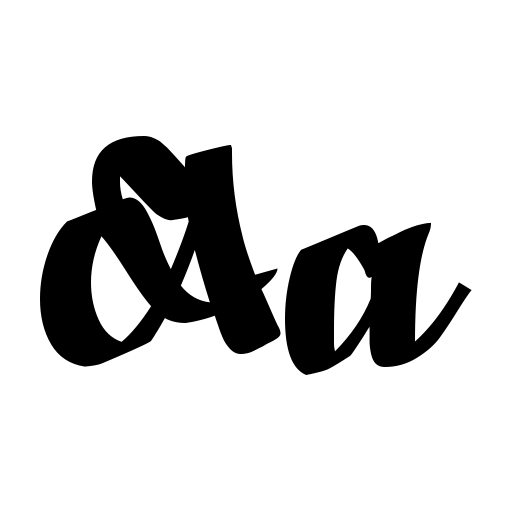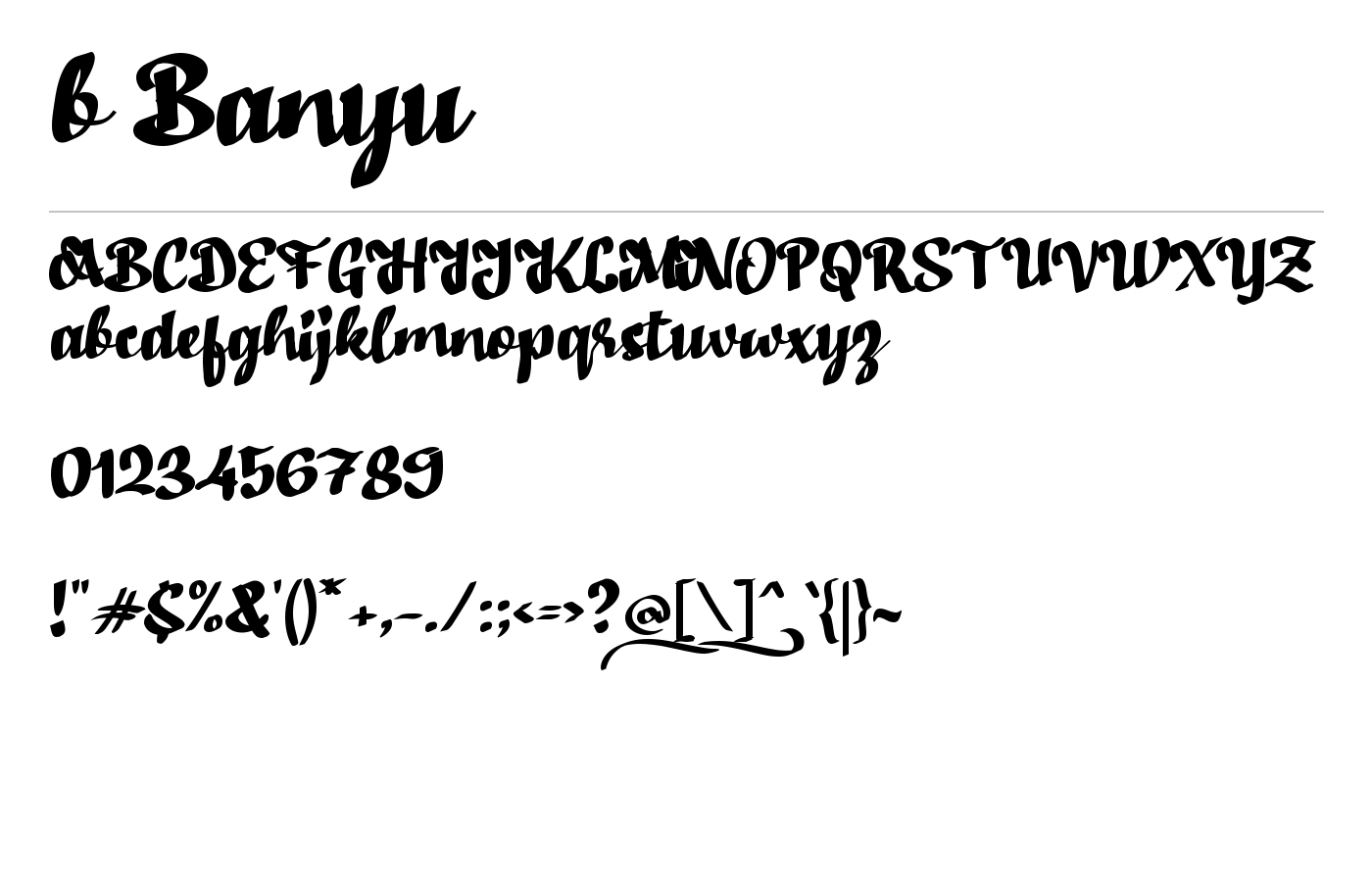
Banyu is a bold, brush-style script font with a strong presence and artistic flair. Its thick, slightly condensed strokes and high contrast give it a dynamic and expressive feel, perfect for creative projects, branding, and headlines that need a touch of personality and energy. This font works well for designs that want to convey warmth, creativity, and a handcrafted look.
b Banyu Font